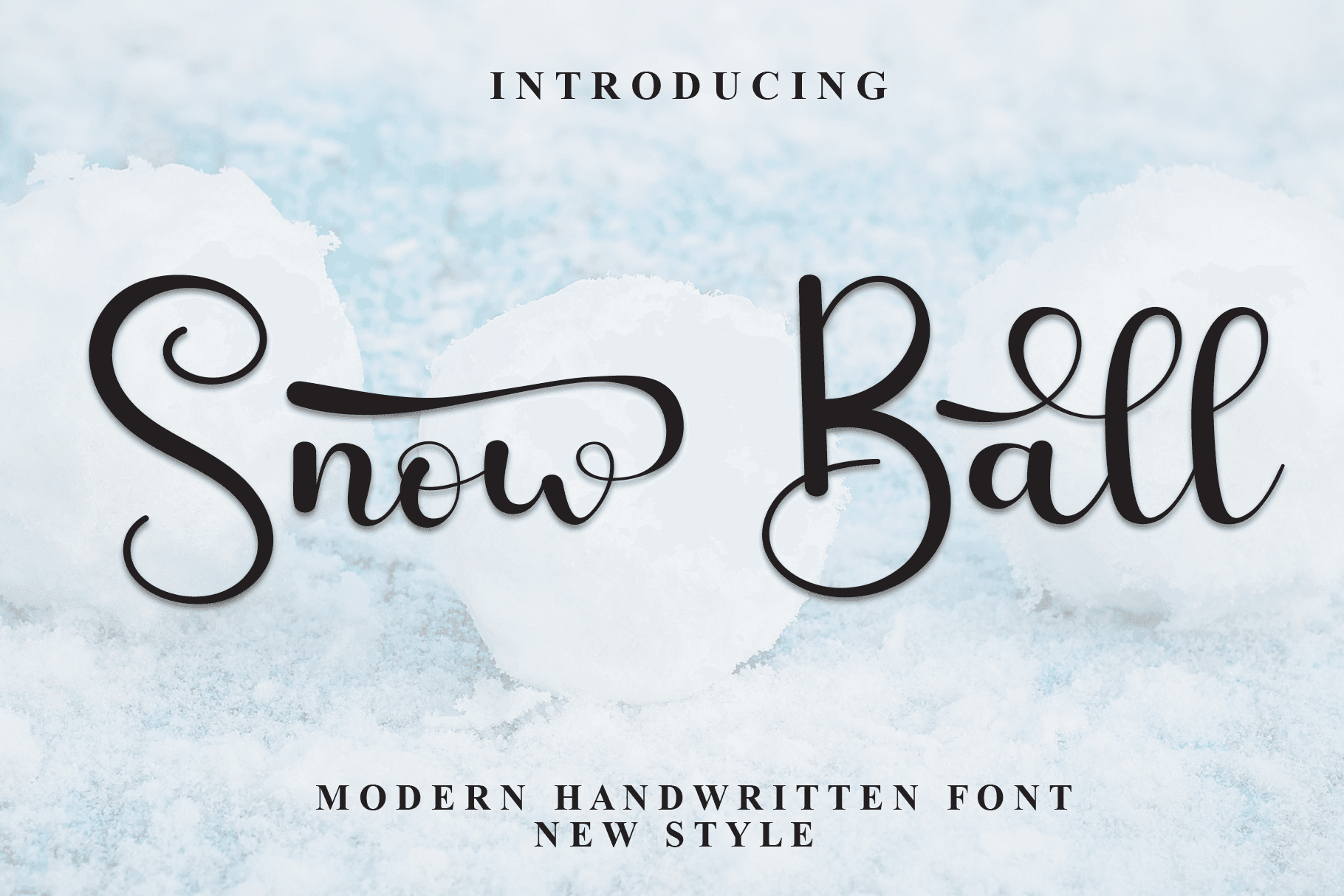
Embrace Whimsy with Snow Ball Font: Sweet and Friendly Are you ready to sprinkle some enchantment into your design projects? Meet the Snow Ball Font—more affectionately known as Sweet and Friendly. This handwritten display font is an embodiment of wh...